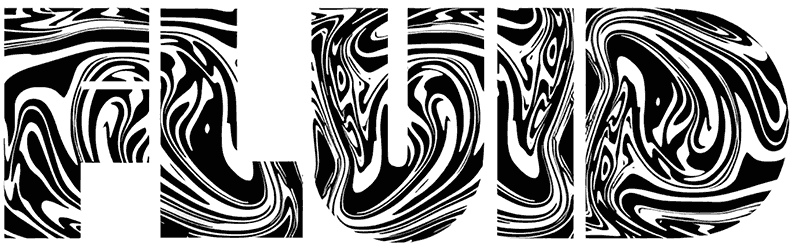
Fluid Font
The messy flow of liquid within each Fluid letter can make any other decoration unnecessary. This decorative font is suitable for designers who want to have two sets of decorative capital letters together and combine them to bring their ideas to life.
This watercolor font can communicate with the association of your business brand and leave an extraordinary impact in the form of posters, advertising banners, and website titles, even without having small letters and numbers.
Two layered fonts bold and bold italic.